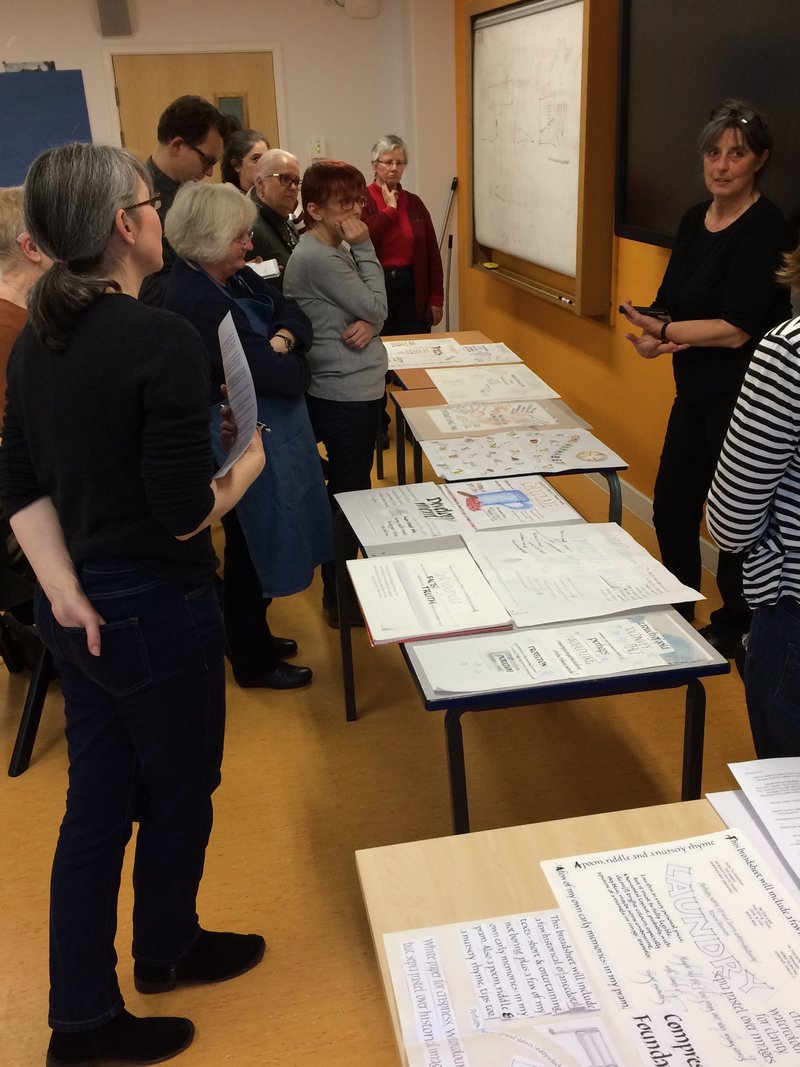
Designing multitext panels with Josie Brown
I have often looked at a piece of work where someone has cleverly fitted together pictures and different styles, weights and colours of text and wondered how it’s done. Our workshop on Saturday 26 January 2019 with Josie Brown was designed to explain and unravel the mysteries.
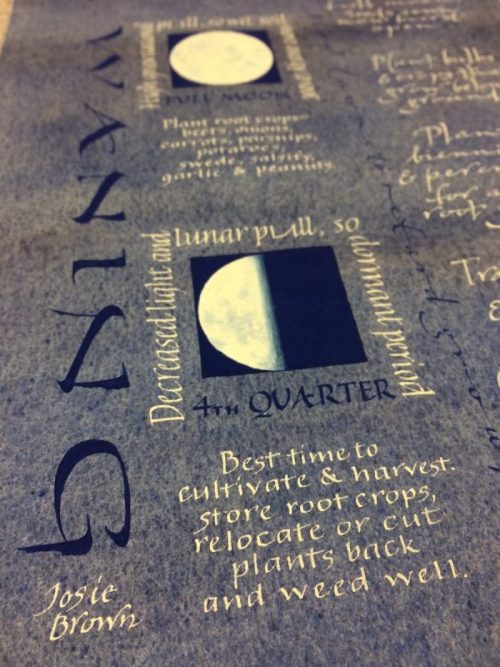
Josie began by taking us through the various elements we need to consider before putting a multitext panel together, then showed us examples of different types of panels and then moved on to small group projects with each group being given a brief and asked to produce ideas for a panel.
In the afternoon everyone had the opportunity to start working on a panel of their own. Lots of work with scissors, paste & sticky tape and some great results put on display at the end of the afternoon. A thoroughly enjoyable day – many thanks Josie.